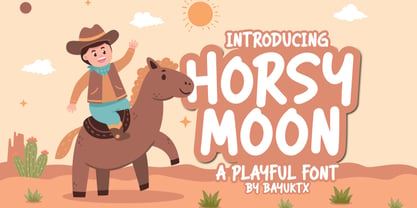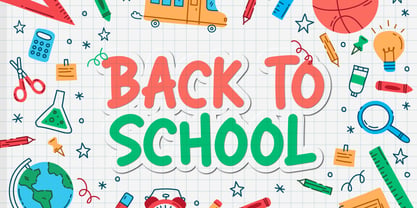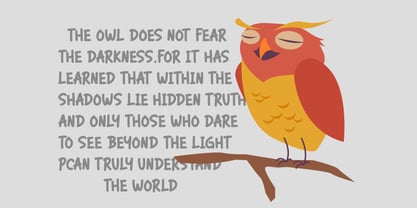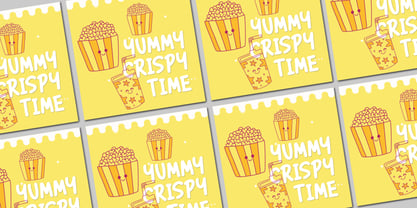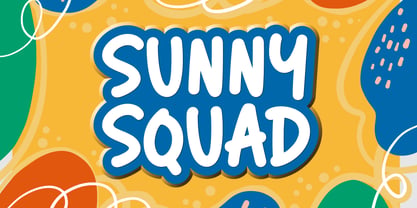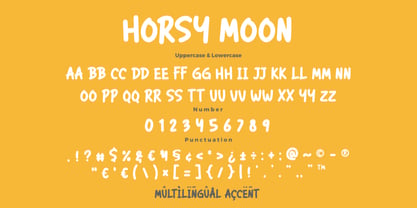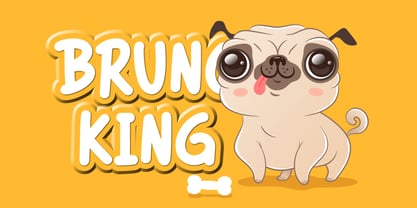
Horsy Moon
von Bayuktx
Die Schriftfamilie Horsy Moon wurde von Bayu Aji Fais Mursid entworfen und von Bayuktx veröffentlicht. Horsy Moon enthält 1 Stile. Mehr über diese Familie
Horsy Moon – Playful Kids Cartoon Font Horsy Moon Playful Kids Cartoon Font is a fun and cheerful display typeface inspired by cute western adventures, friendly cartoon characters, and joyful childhood imagination. Featuring bold rounded shapes, soft edges, and bouncy letterforms, this font delivers a lively and adorable personality. Designed to capture the spirit of playful storytelling, Horsy Moon blends cartoon-style lettering with a warm and friendly visual tone. The smooth curves and chunky forms create a soft, approachable feel, making every character look expressive, cute, and full of energy. With its bright and whimsical aesthetic, Horsy Moon is perfect for designs that aim to feel fun, lighthearted, and engaging. It brings a charming cartoon vibe that works beautifully across kids-themed and creative projects. Key Features : * Uppercase & Lowercase Characters * Numerals & Punctuation * Multilingual Support * PUA Encoded & OpenType Features * Bold & Rounded Cartoon Style * Soft & Friendly Letterforms * Playful & Expressive Look Suitable For : * Kids & Cartoon Branding * Posters & Social Media Graphics * Children’s Books & Illustrations * Cute Merchandise & Stickers * Educational Content * Invitations & Greeting Cards * Fun & Playful Designs With Horsy Moon a Playful Kids Cartoon Font, your designs will feel more cheerful, lively, and full of joyful character — perfect for projects that want to capture the magic of fun and imagination.
Designer: Bayu Aji Fais Mursid
Foundry: Bayuktx